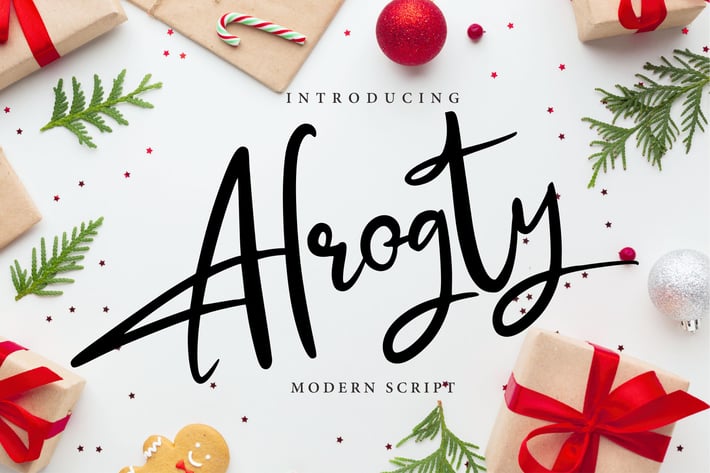
Alrogty | Modern Script Font
Alrogty | Modern Script Font with a calligraphy style, So beautiful on invitation like greeting cards, branding materials, business cards, quotes, posters, and more!